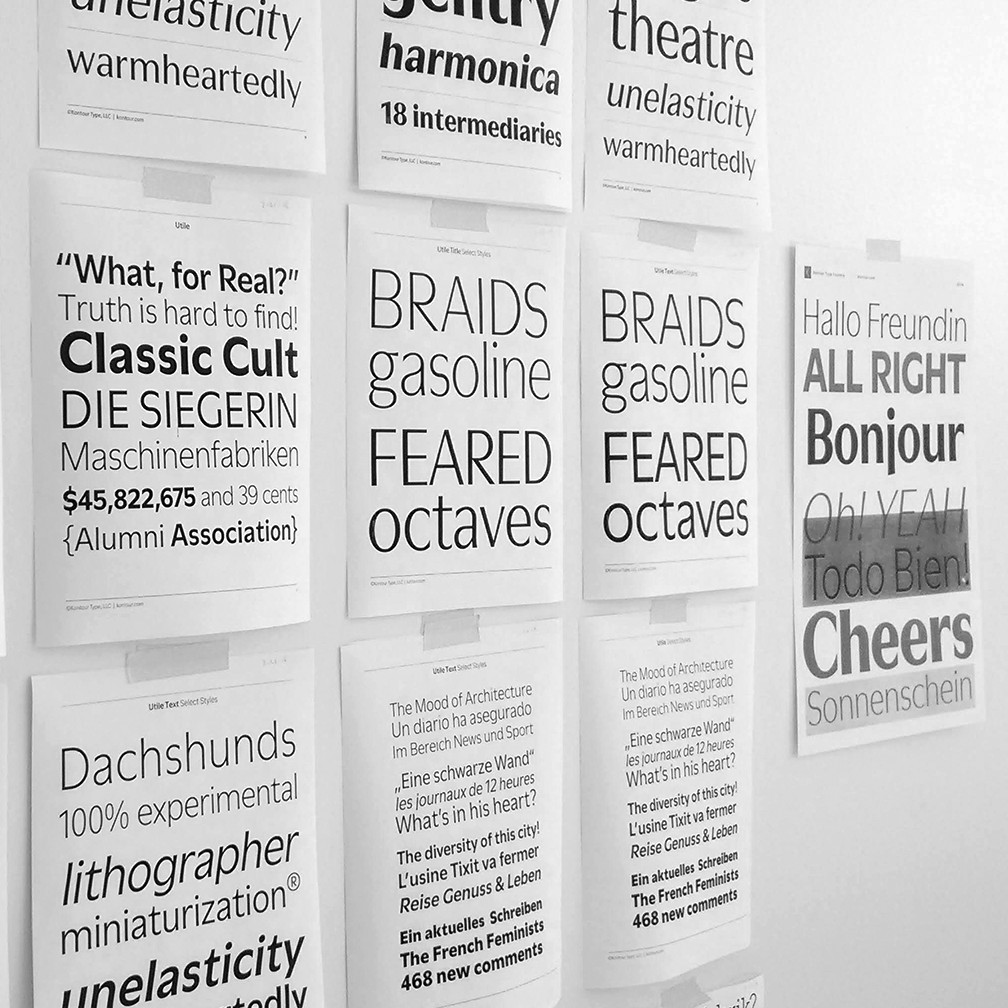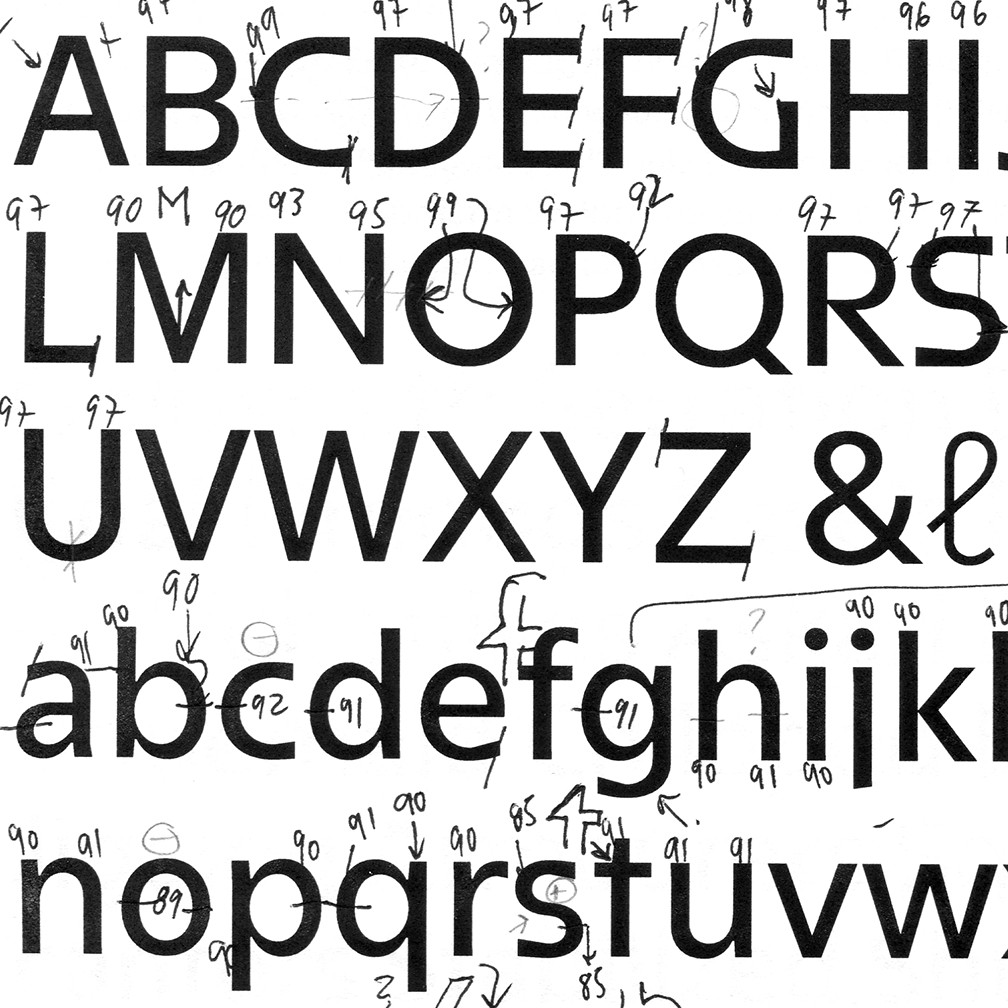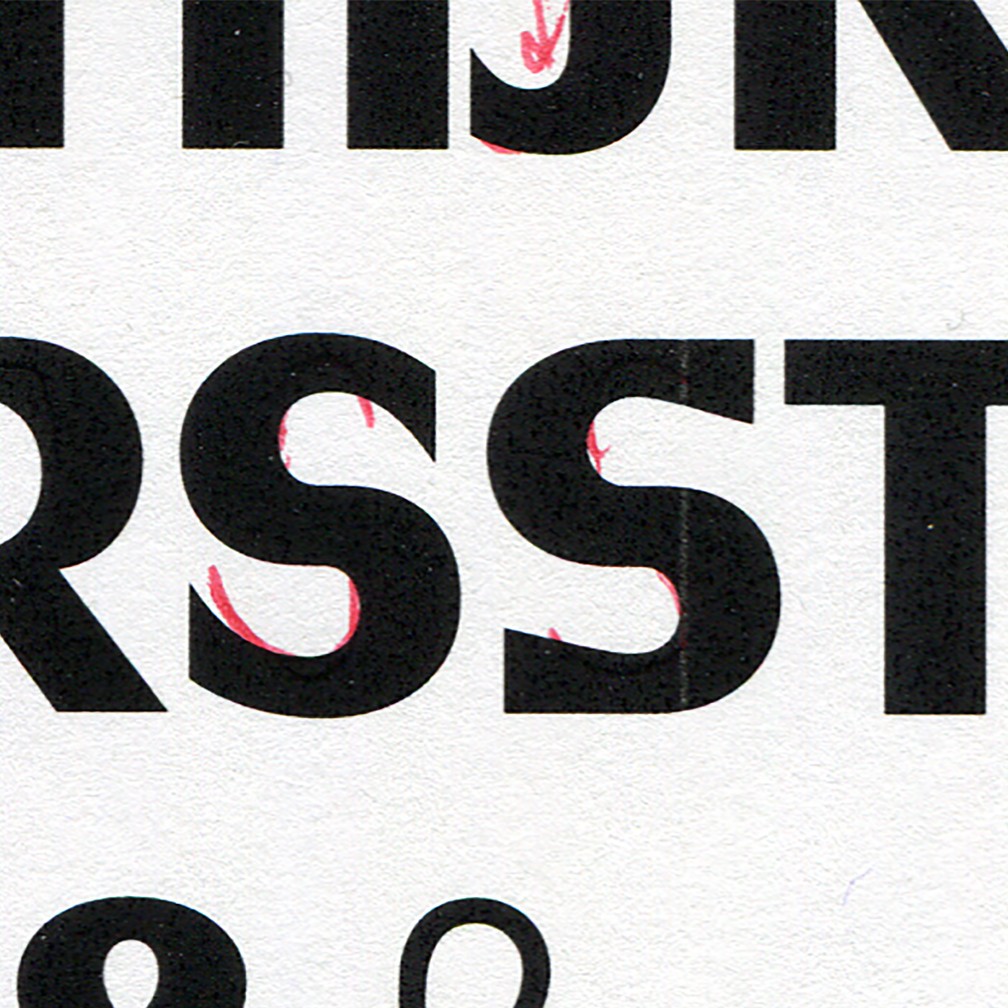
Sibylle Hagmann
Utile and Utile Display are elegantly flared sans in two finishes suited for continuous smaller-sized text and corresponding display typography, with an overarching aim for superb legibility and optical balance. Designed with clarity and function in mind, Utile (text) features a solid letter build with carefully weighed spacing for ongoing passages of text, and form definitions compensating for trapped ink and low pixel density. Utile Display, a modulated sans, pays tribute to the contrast of thick and thin, feeling right at home in title compositions with tighter letter spacing and re-proportioned designs. The contrasted sans promotes a timeless elegance and lively aesthetic that comes especially to light in larger sizes. The slightly curved stem modulation of the Utile Collection, uniquely asymmetrical in its application, attempts to maintain a balancing act between swelled strokes and the absence of such, a feature in tune with open counters and vertical stroke ends, yielding a dynamic quality. Open Type features include figures for text and tables, stylistic alternates, fractions, and more. The ample weight scale and multipurpose variety of text and display is intended, but not limited, for contemporary identity-branding, editorial and advertising for print and screen programs.
Utile started out as an extensive study of numerous sans-serif typefaces that have their roots in the type classification of static Grotesks and Neo Grotesks. In parallel to this exploration and during the design process, divergent consideration came into play, such as maximum flat-open apertures in upper cases (C, G, S) and lower cases (c, s), a concept that was later abandoned to return to more measured apertures with moderately open humanist lower case forms to enhance the reading experience for smaller set text.
Although the concept of flat-open apertures was set aside, it provoked an exploration of stroke contrast and an addition of glyphic details that led to lightly swelled terminals for both text and display styles. The asymmetrical incised stem definitions, applied with measure, help to render the type rhythmically animated with a touch of classical letter heritage. To keep reverberations of the pen at its lowest, the majority of upper cases are then also mostly spared of glyphic details generally maintaining a sans identity. The Utile collection is reminiscent of typefaces designed during the mid 20th century enunciating a certain elegance and fluidity.